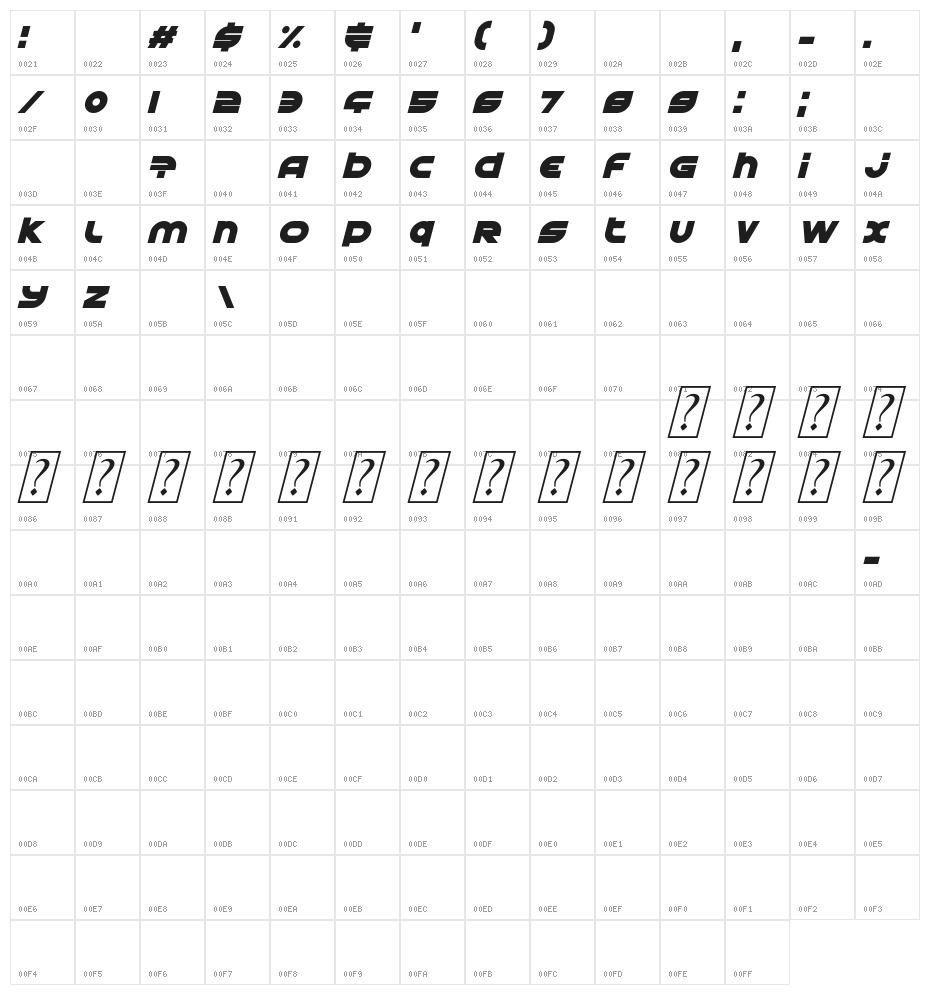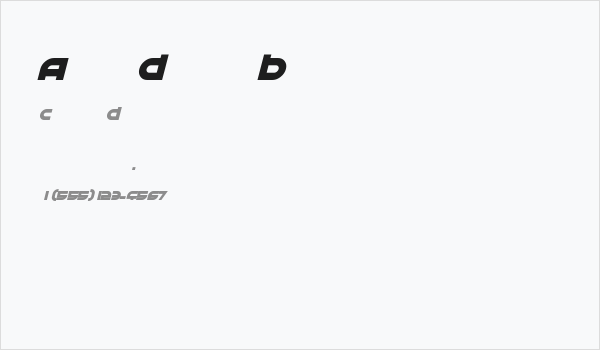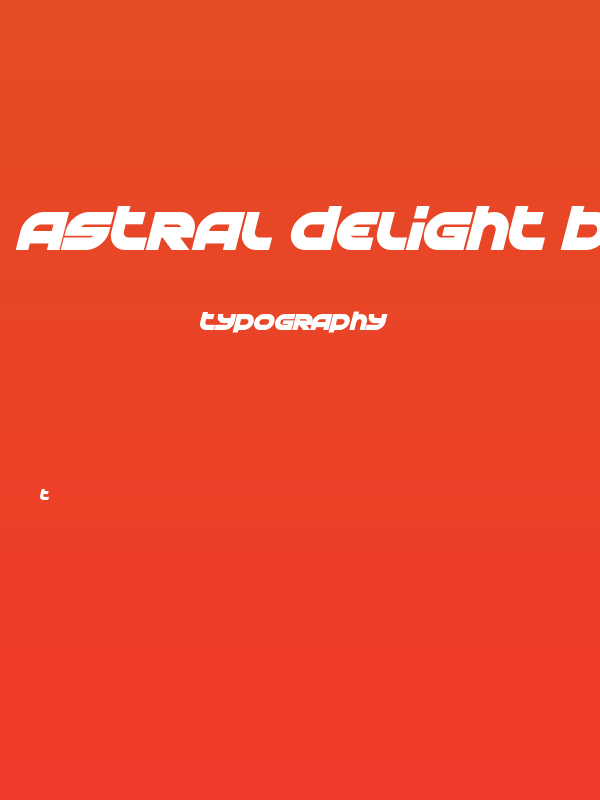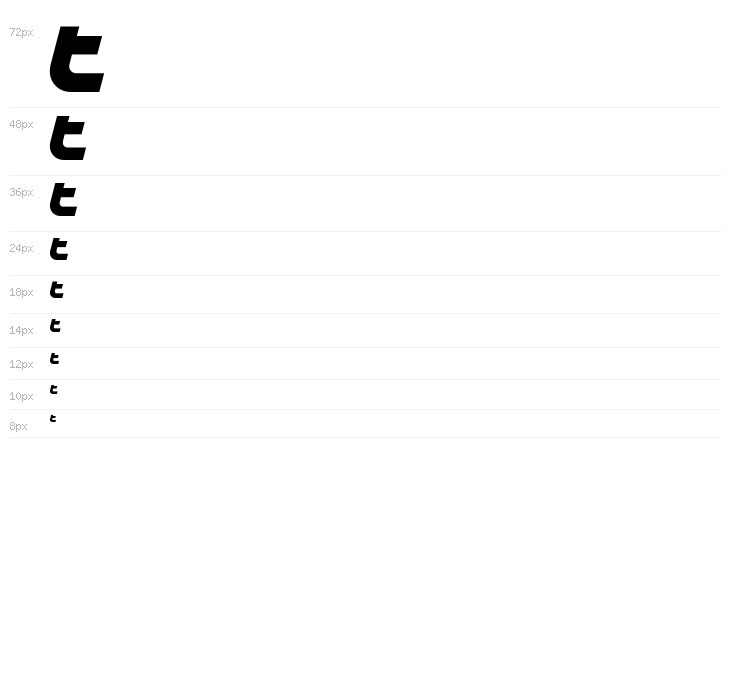
Astral Delight Black Font
Astral Delight Black Description
This font features a bold and futuristic design, characterized by its thick, rounded letterforms and dynamic slanted angles. The characters exhibit a sense of movement and energy, making it ideal for attention-grabbing headlines and modern branding. The uppercase and lowercase letters maintain a consistent style, with a unique geometric flair that adds a touch of sophistication. The numerals and special characters are equally bold, ensuring a cohesive look across all text elements. Its strong presence and distinctive style make it suitable for projects that require a modern and impactful visual identity.
| Proposed Projects | Ideal for modern branding, tech-related projects, and eye-catching headlines. |